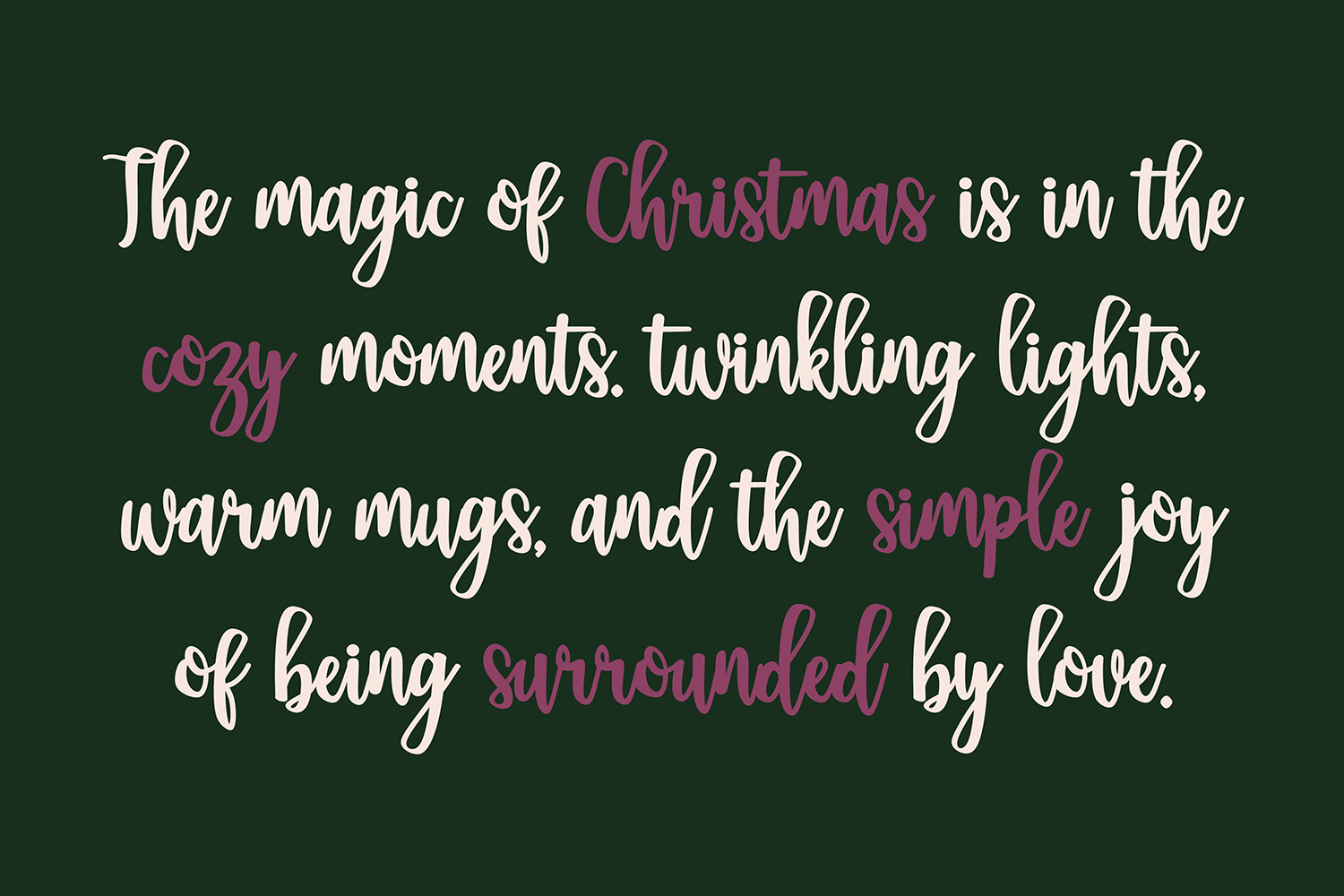
"Hometown Christmas" a brush winter script Christmas font
Hometown Christmas is a vintage script font. This font is great for holiday decor, cards, and farmhouse living.